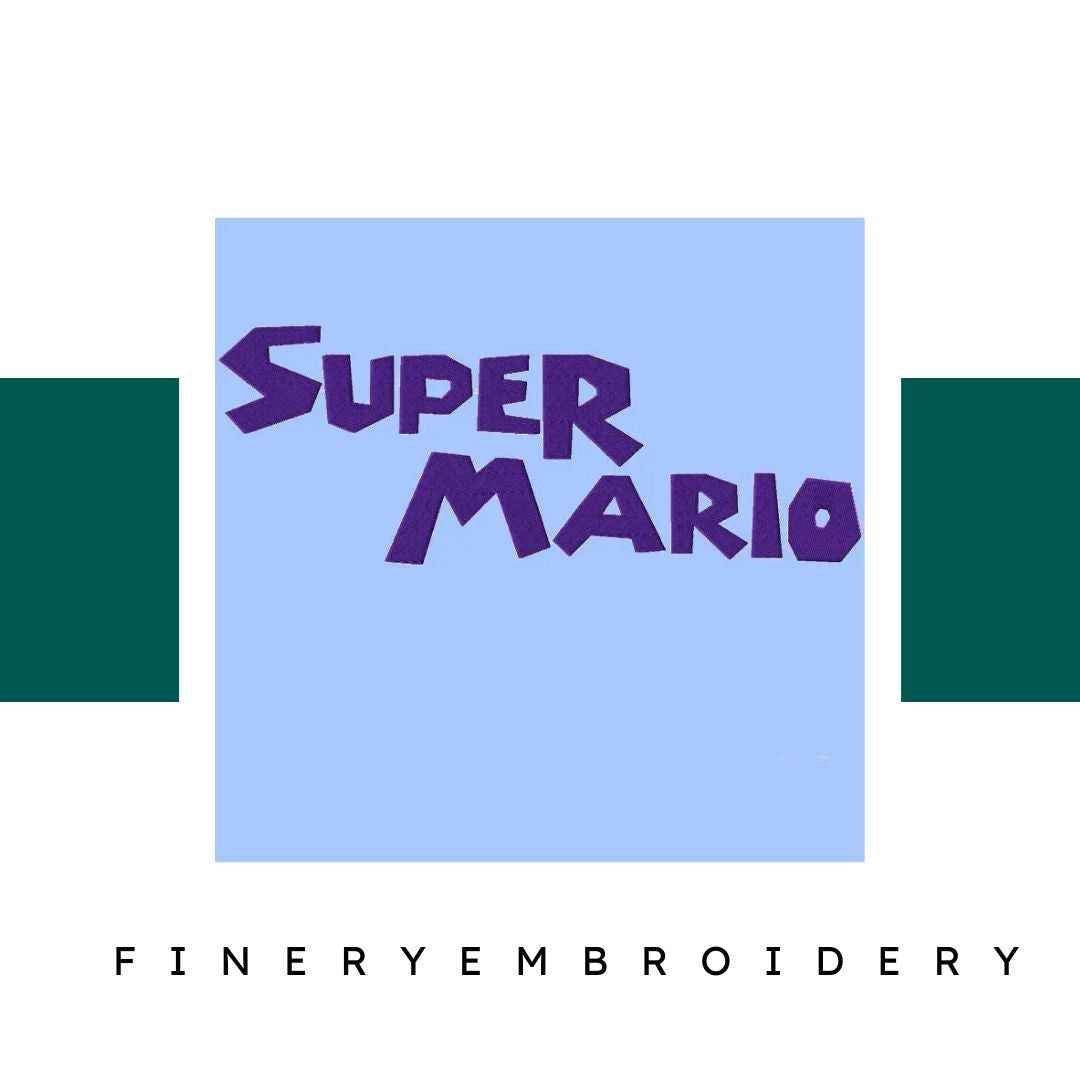
Unleash your creativity with the Super Mario Embroidery Alphabet Font Set – where nostalgia meets artistry!
Dive into the whimsical world of gaming with the Super Mario Embroidery Alphabet Font Set. This delightful font set is the perfect blend of fun and finesse, allowing you to transform your embroidery projects into vibrant expressions of your love for the iconic Super Mario universe. Whether you’re creating gifts, home decor, or personalized apparel, this set brings a playful twist to every creation.
With its charming characters and vibrant colors, the Super Mario Embroidery Alphabet Font Set is designed to inspire joy and creativity. The high-quality designs ensure that your projects pop with personality, making them ideal for any Mario enthusiast looking to add a touch of nostalgia to their work. This font set is not just a tool; it’s a gateway to endless creative possibilities!
Imagine embroidering your favorite quotes from the game, customizing t-shirts for game nights, or creating unique gifts for friends who share your passion. The versatility of this font set means it can be used on a variety of fabrics, from cozy fleece blankets to stylish tote bags. Let your imagination run wild as you explore all the creative avenues this set offers!